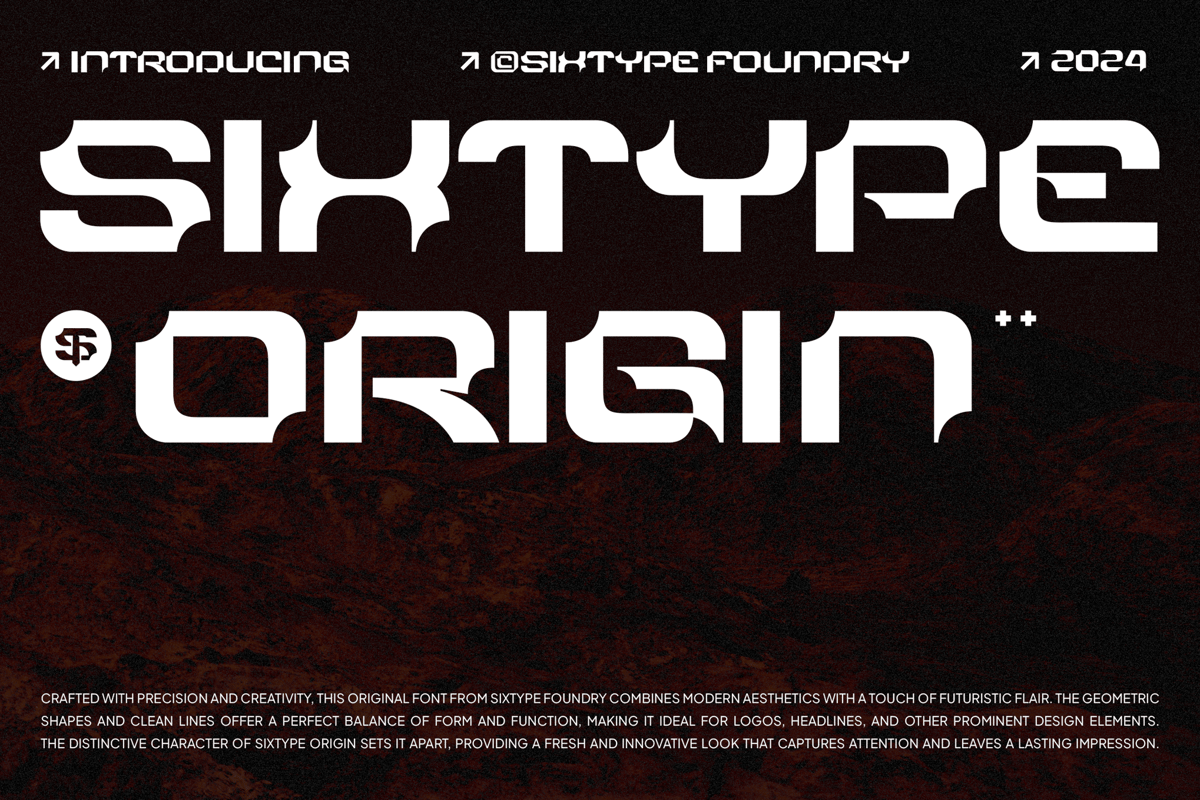
Sixtype Origin Font
Elevate your designs with Sixtype Origin, a striking geometric font that perfectly balances modern sophistication with futuristic edge. Crafted with precision and creativity by Sixtype Foundry, this original typeface combines sleek aesthetics with a touch of sci-fi flair. The geometric shapes and clean lines create an ideal harmony of form and function, making it perfect for logos, headlines, and other standout design elements. The distinctive character of Sixtype Origin sets it apart from conve...